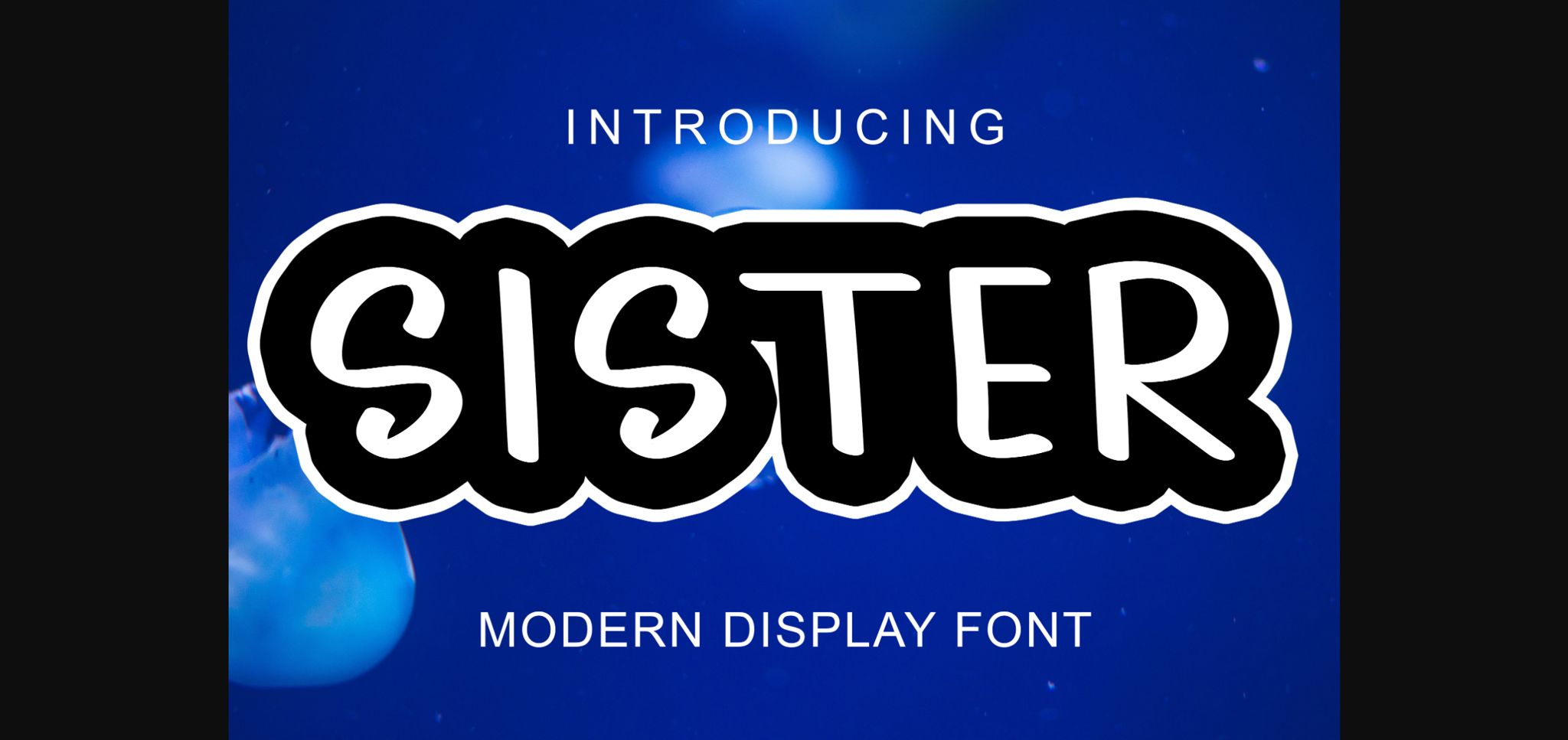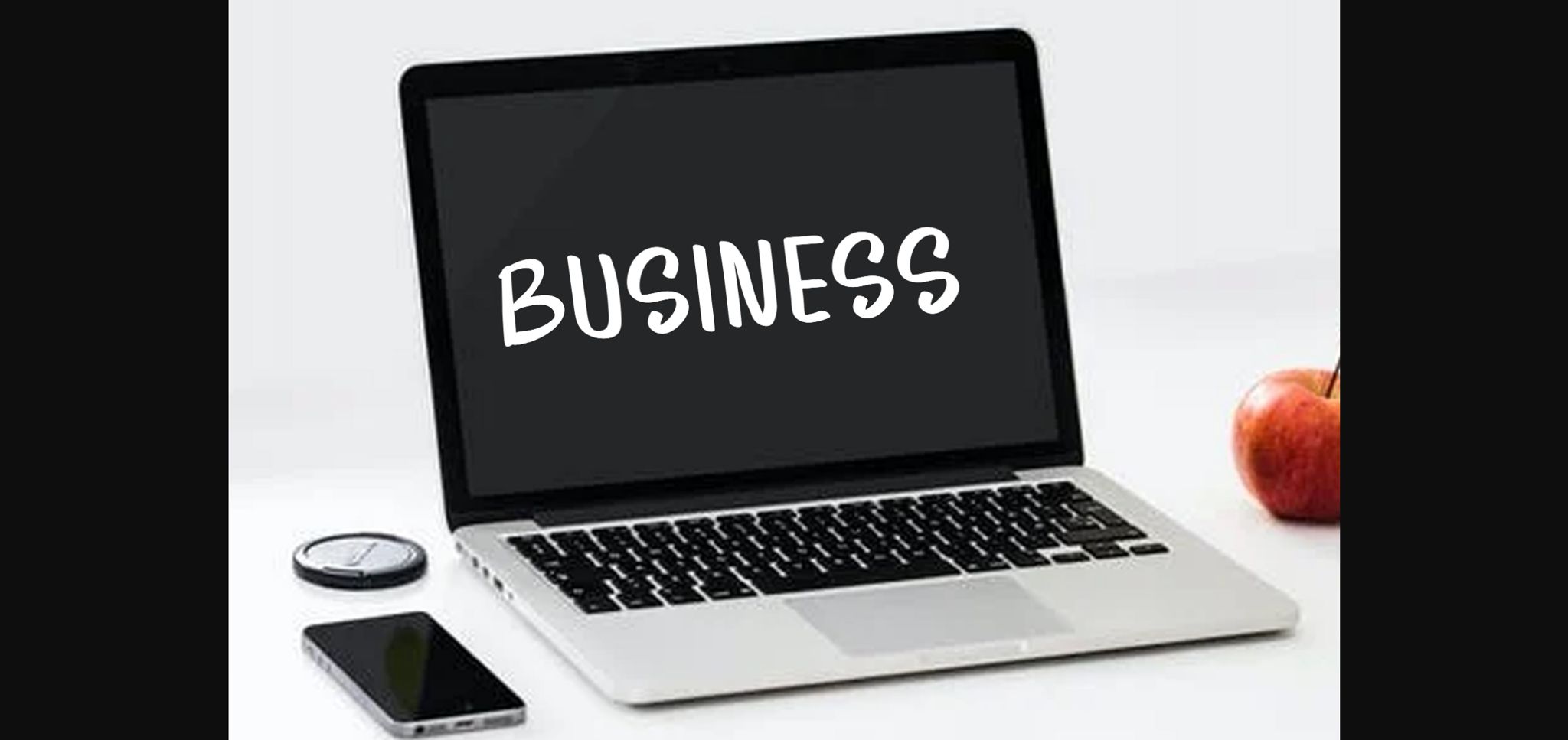
About Sister Font
Sister is a bold and versatile sans serif font that can be used in many designs. Feature it in your Youtube banners, Cover Logo Mockups, Wedding Invitations, Cards, Flayer, Crafts.